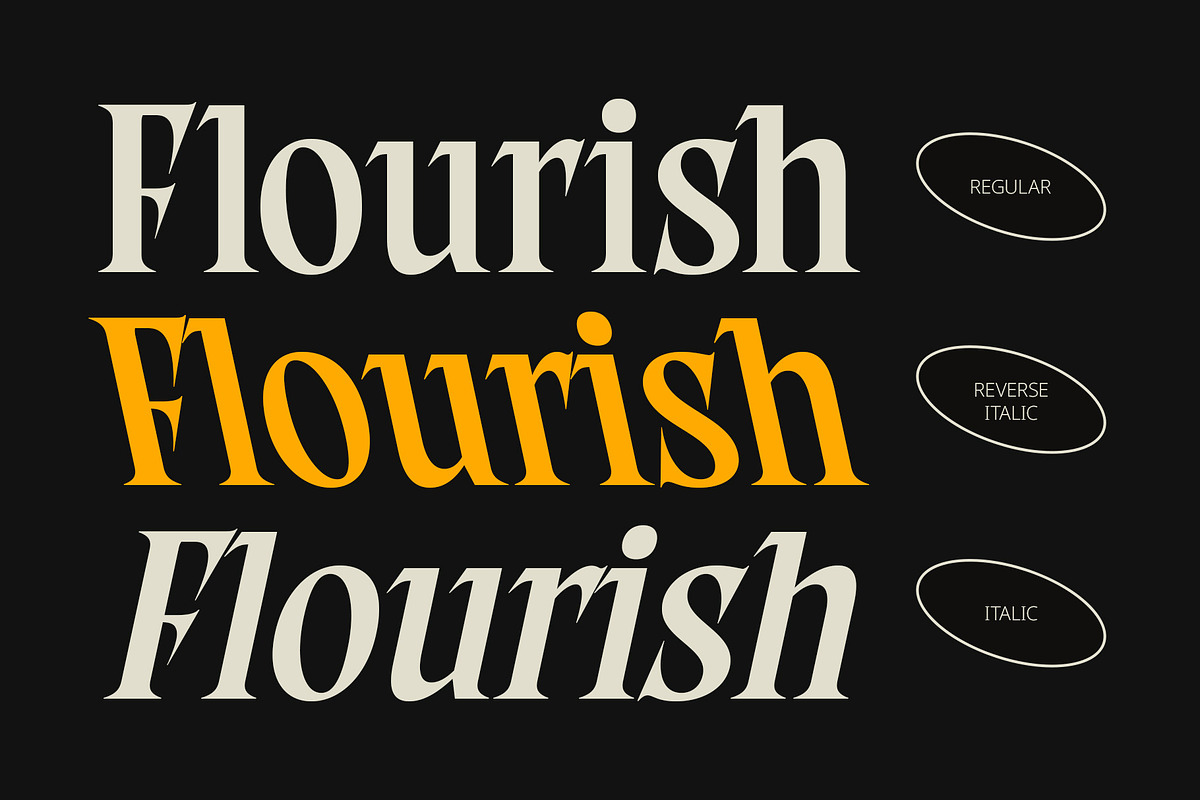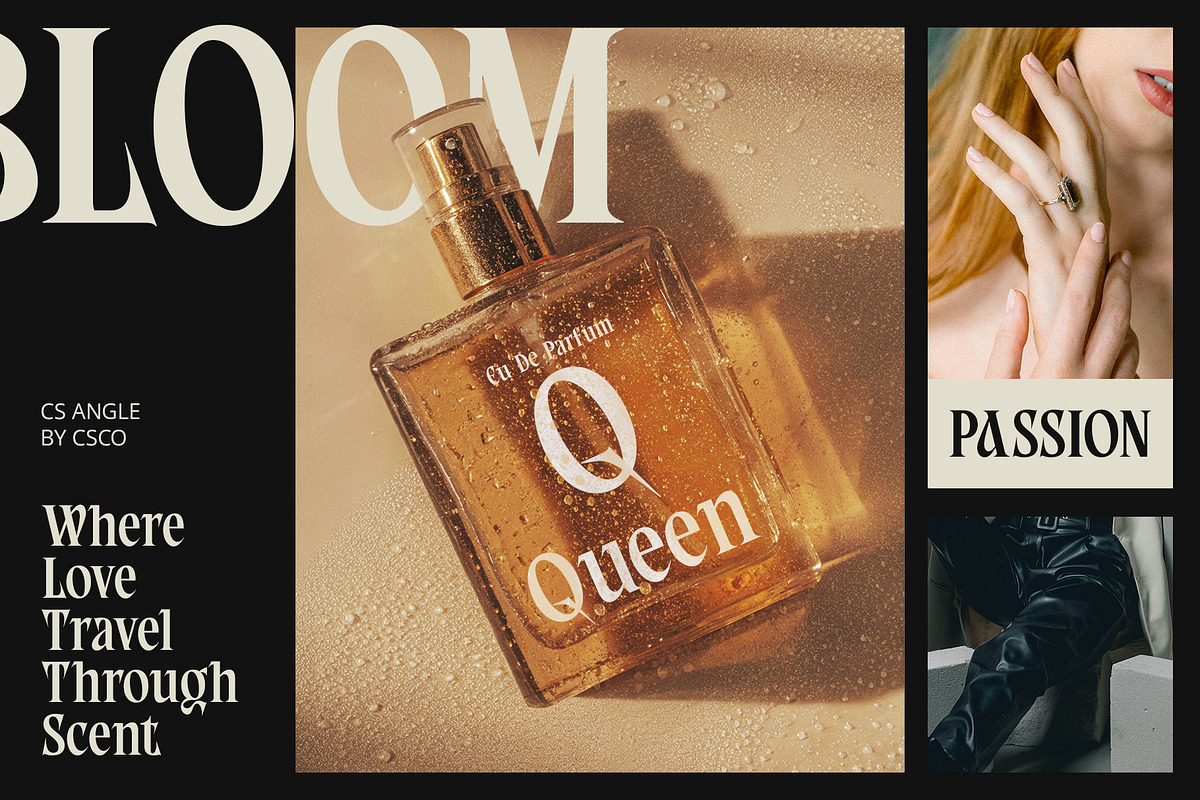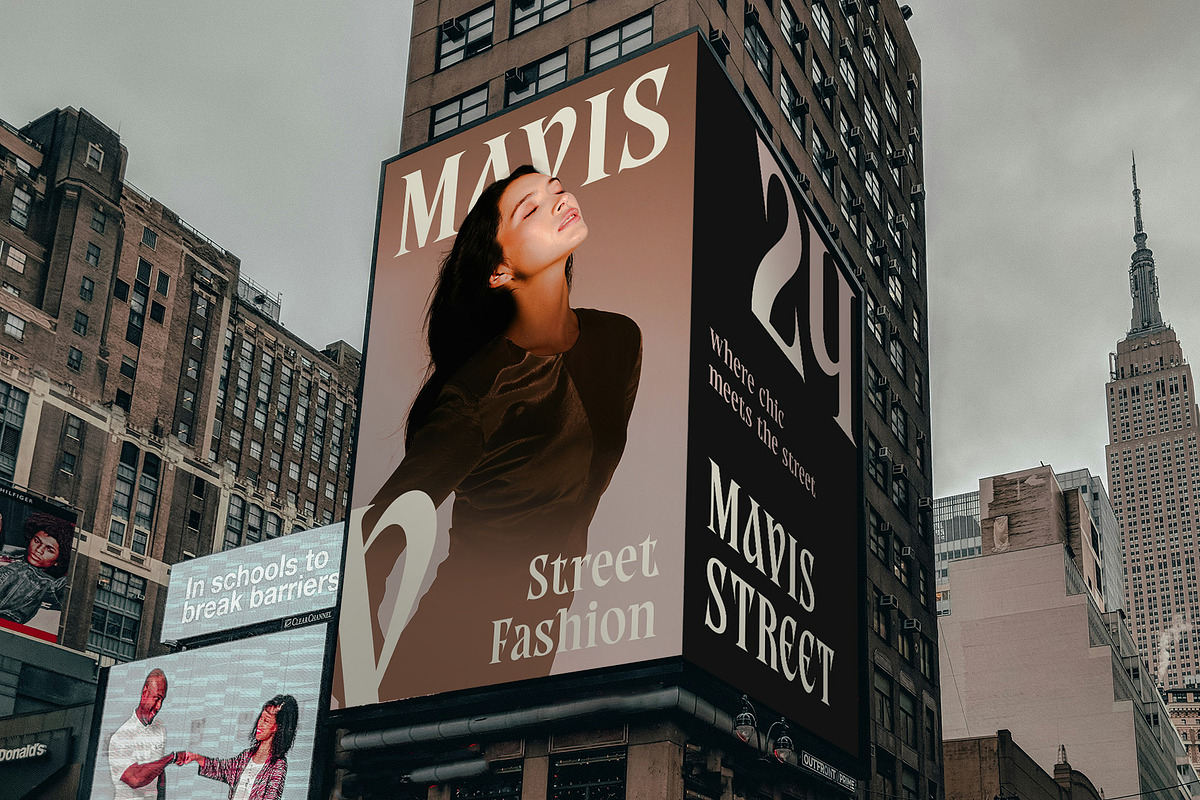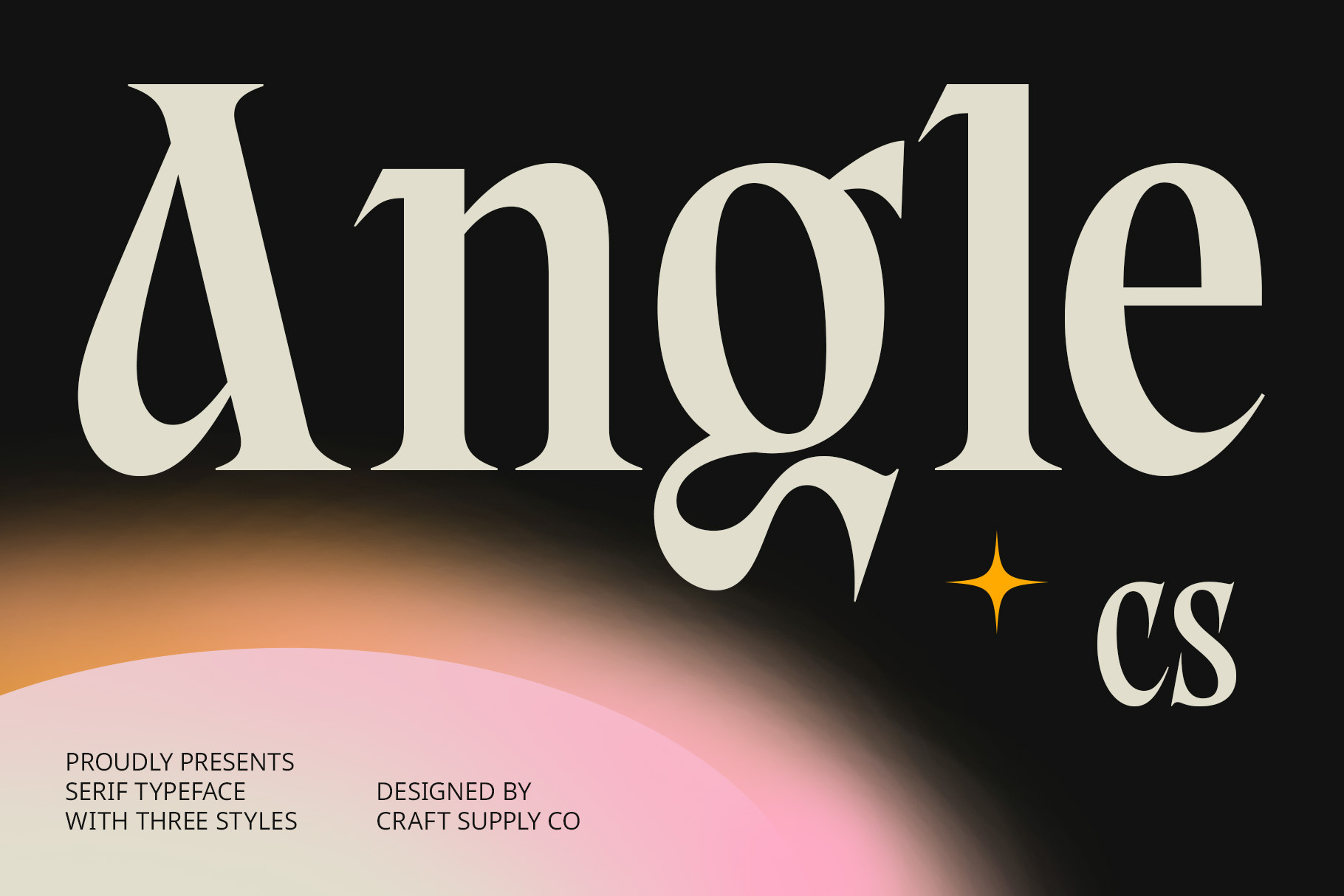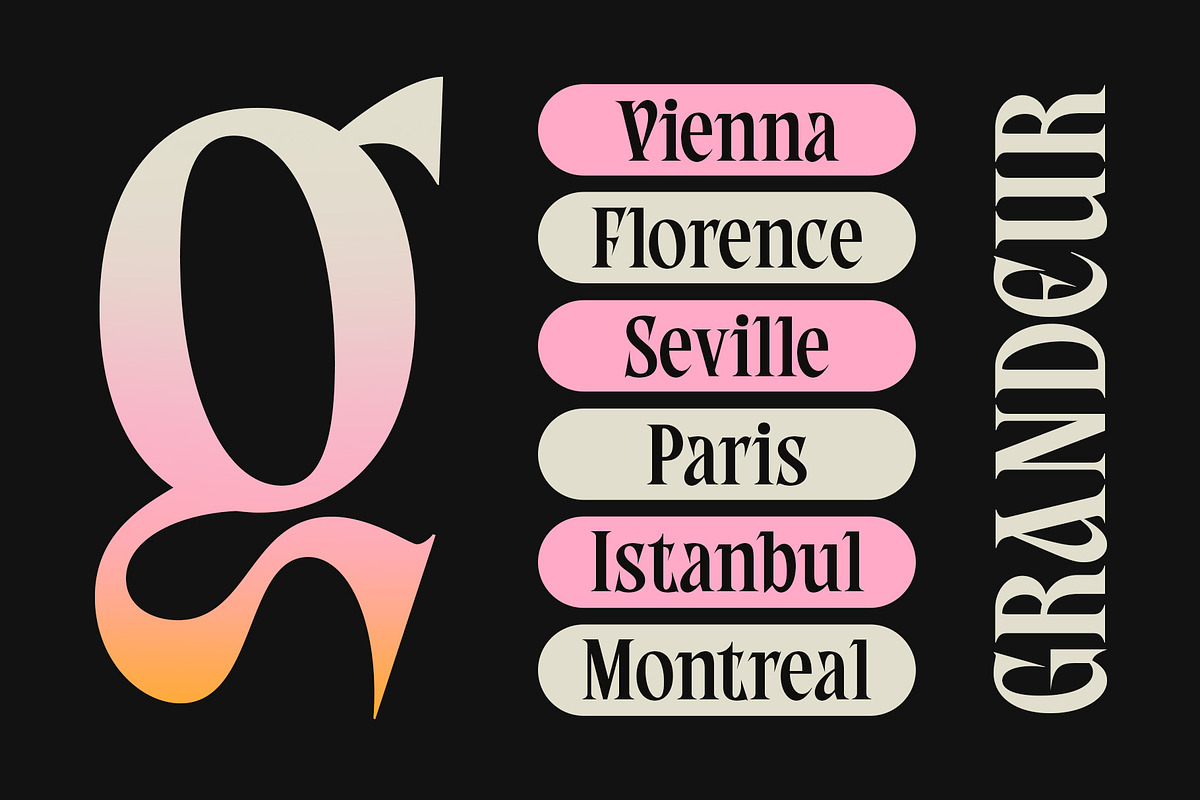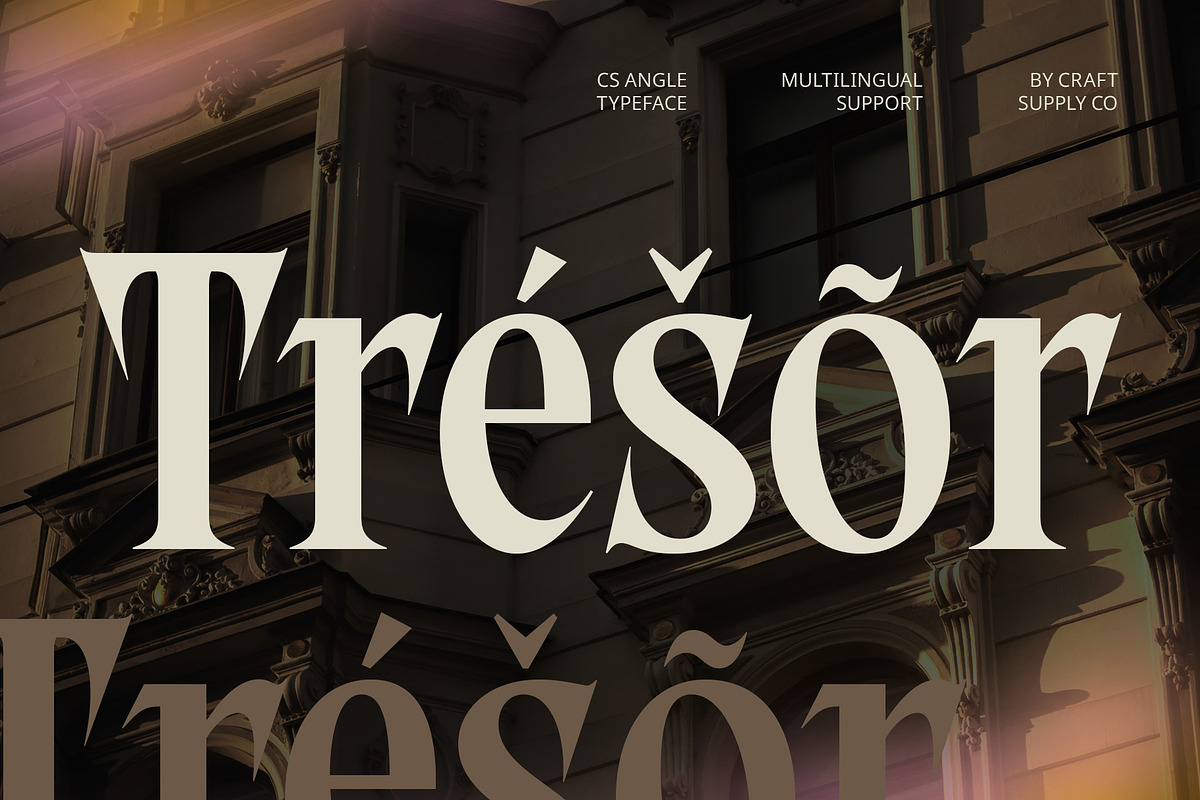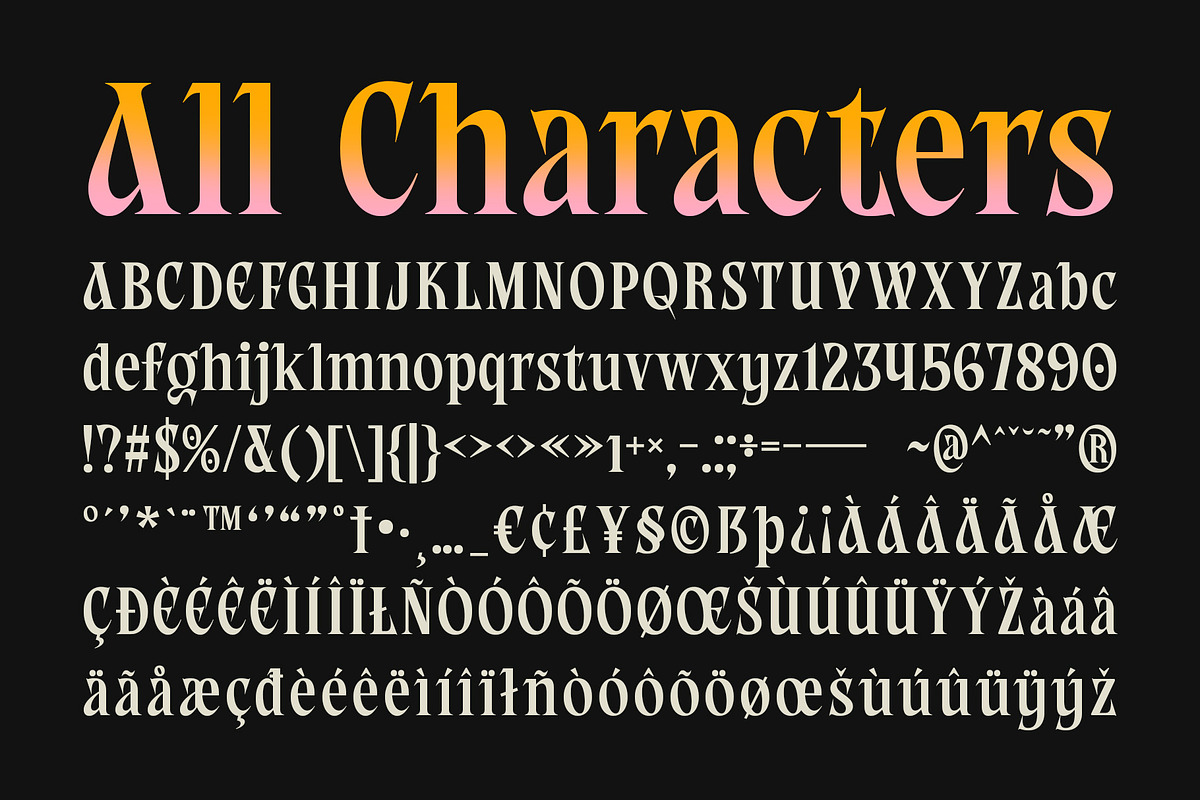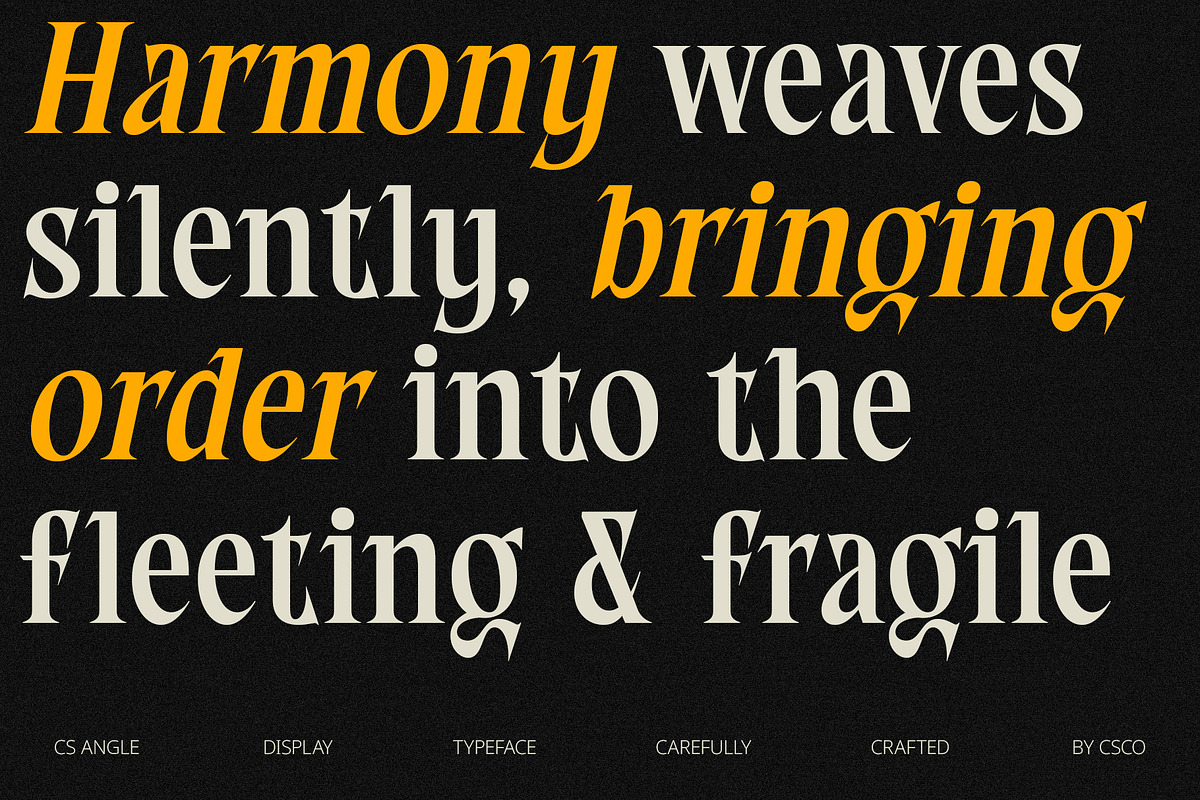
CS Angle – Classic Font
CS Angle – Classic Font: Timeless Elegance and Modern Charm
Modern Classic Serif with Elegant and Charming Forms CS Angle is a modern classic serif font that seamlessly blends traditional elegance with contemporary appeal. Its refined design features clean, sharp lines and long, graceful serifs, offering a sophisticated look that speaks to both timeless style and modern luxury. The carefully crafted forms bring together the best of both worlds, providing a sleek, professional appearance perfect for a wide range of high-end applications.
Clean, Sharp Lines with a Luxurious Feel The crisp lines of CS Angle, combined with the extended serifs, create a strong sense of refinement and precision. These sharp elements add an element of modernity to the classic serif structure, while maintaining the luxurious, high-end feel that makes this font perfect for premium designs. Its clean, well-defined letterforms ensure excellent readability while giving any project a sophisticated touch.
Timeless Appeal for Elegant, Professional Designs With its perfect balance of tradition and modernity, CS Angle offers a timeless quality that makes it suitable for a wide variety of applications. Whether you’re designing a corporate logo, crafting editorial layouts, or creating packaging for luxury products, this font will enhance your design with an air of professionalism and elegance. Its timeless appeal ensures that it will never go out of style.
- CS Angle Regular
- CS Angle Italic
- CS Angle Reverse Italic